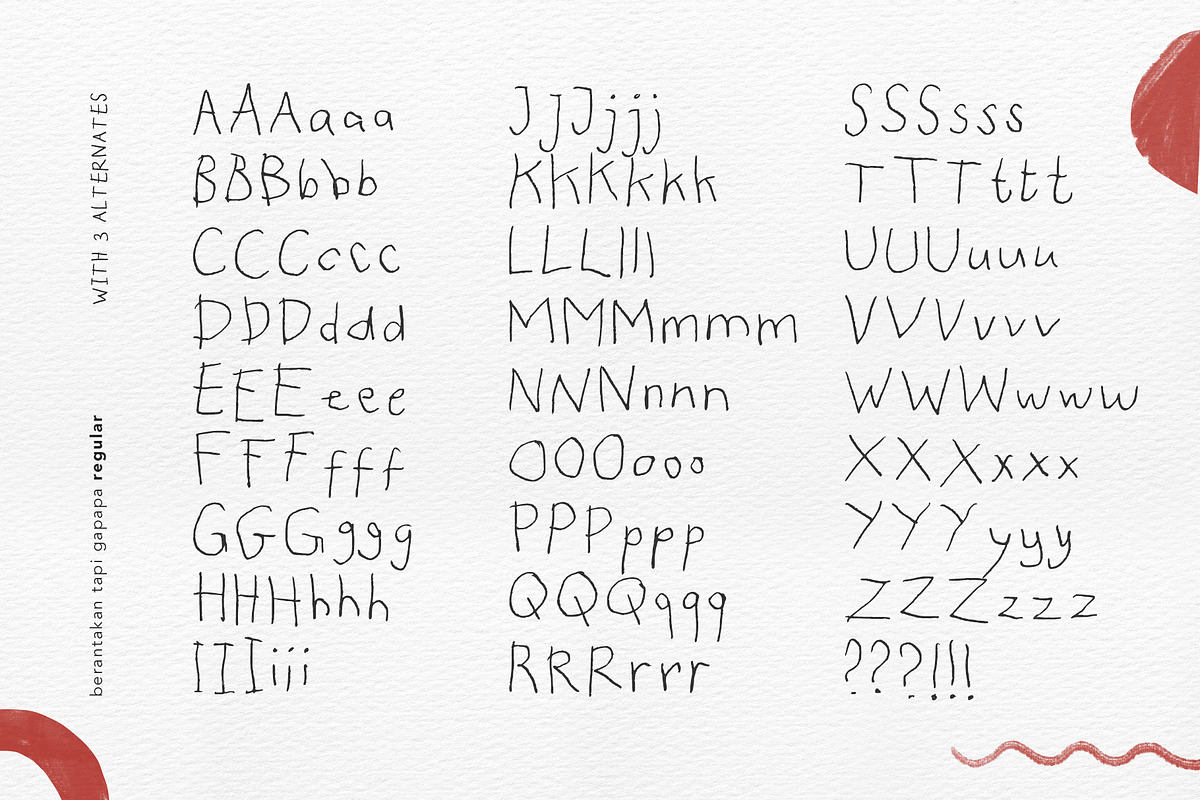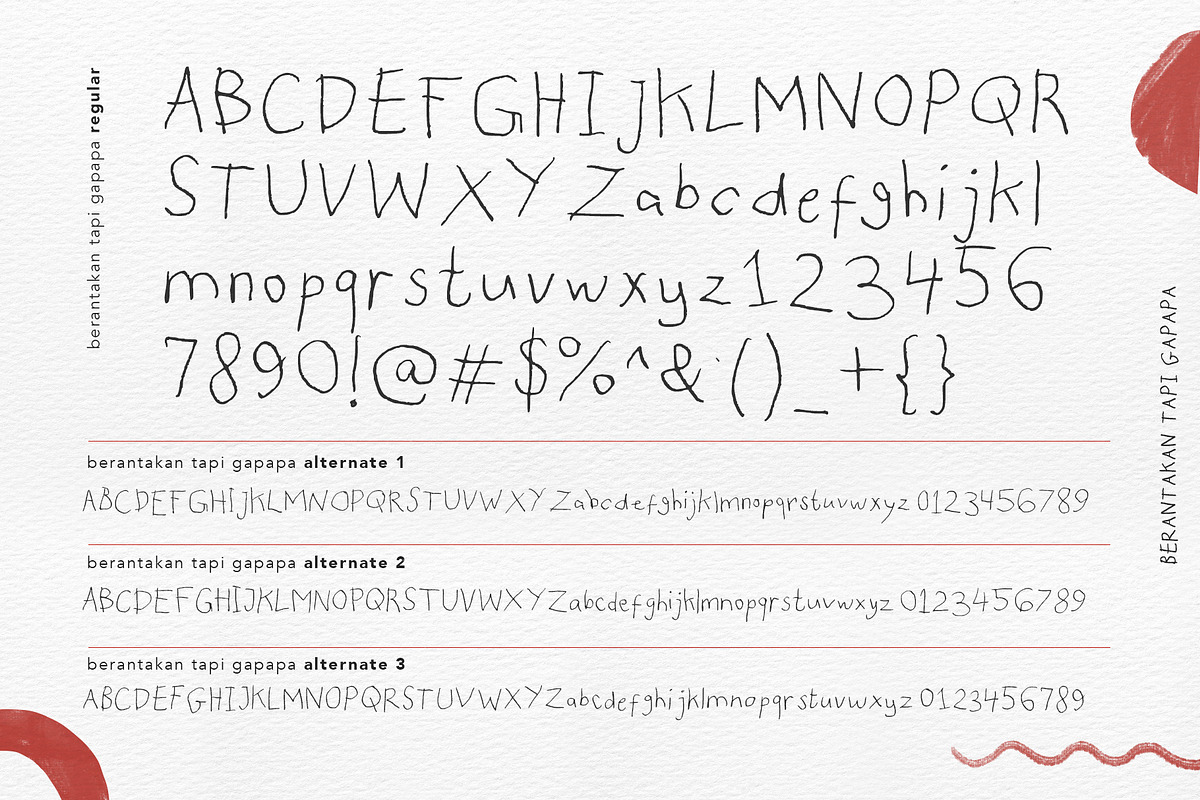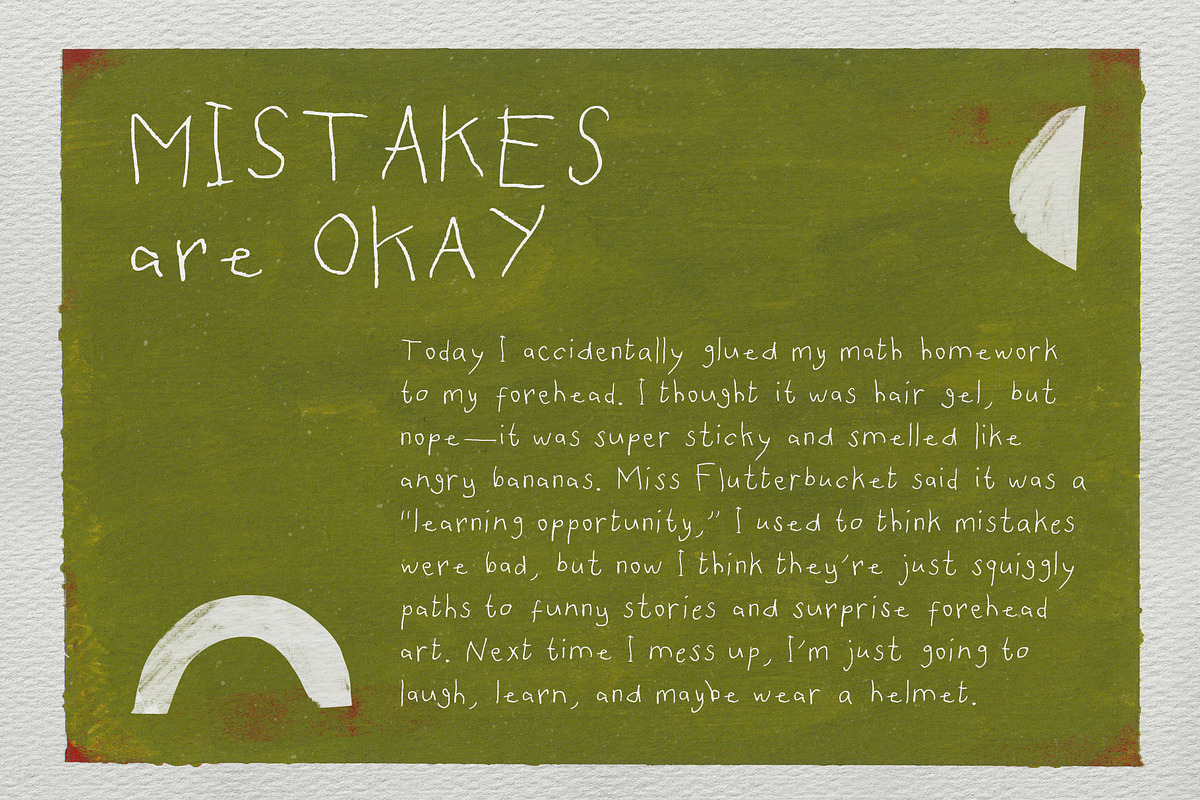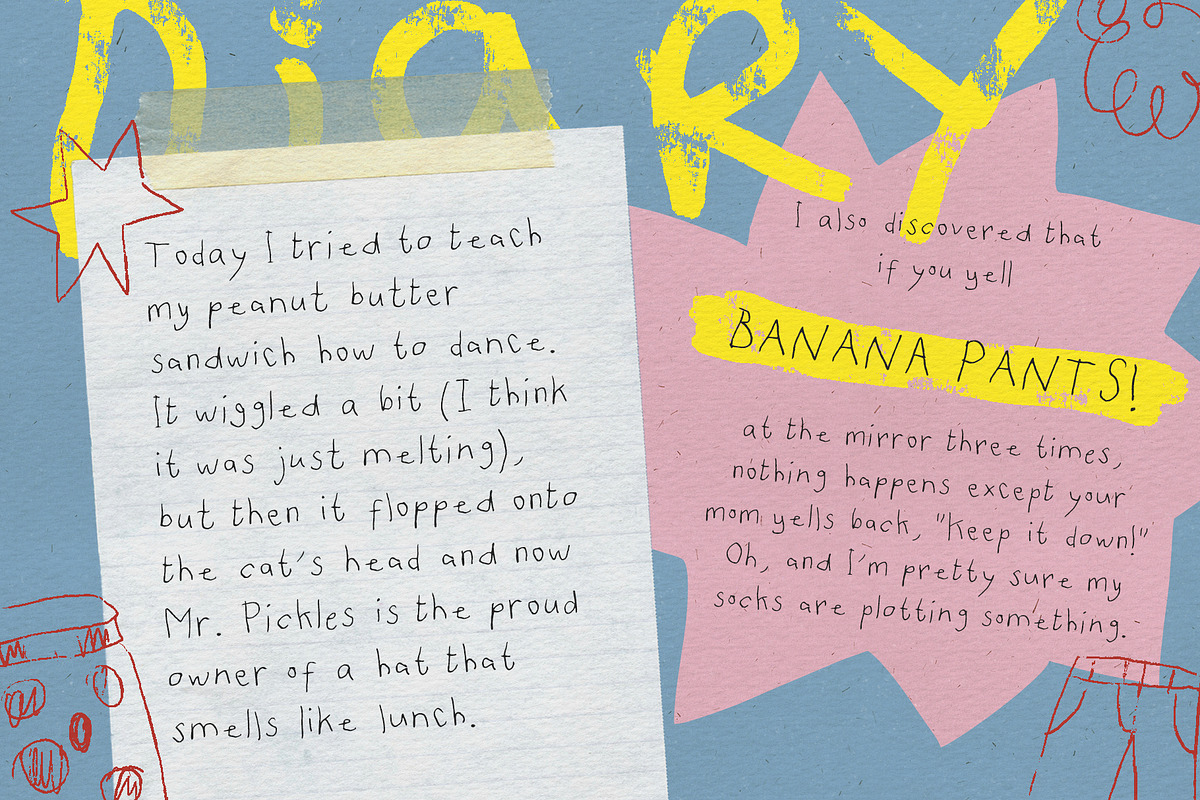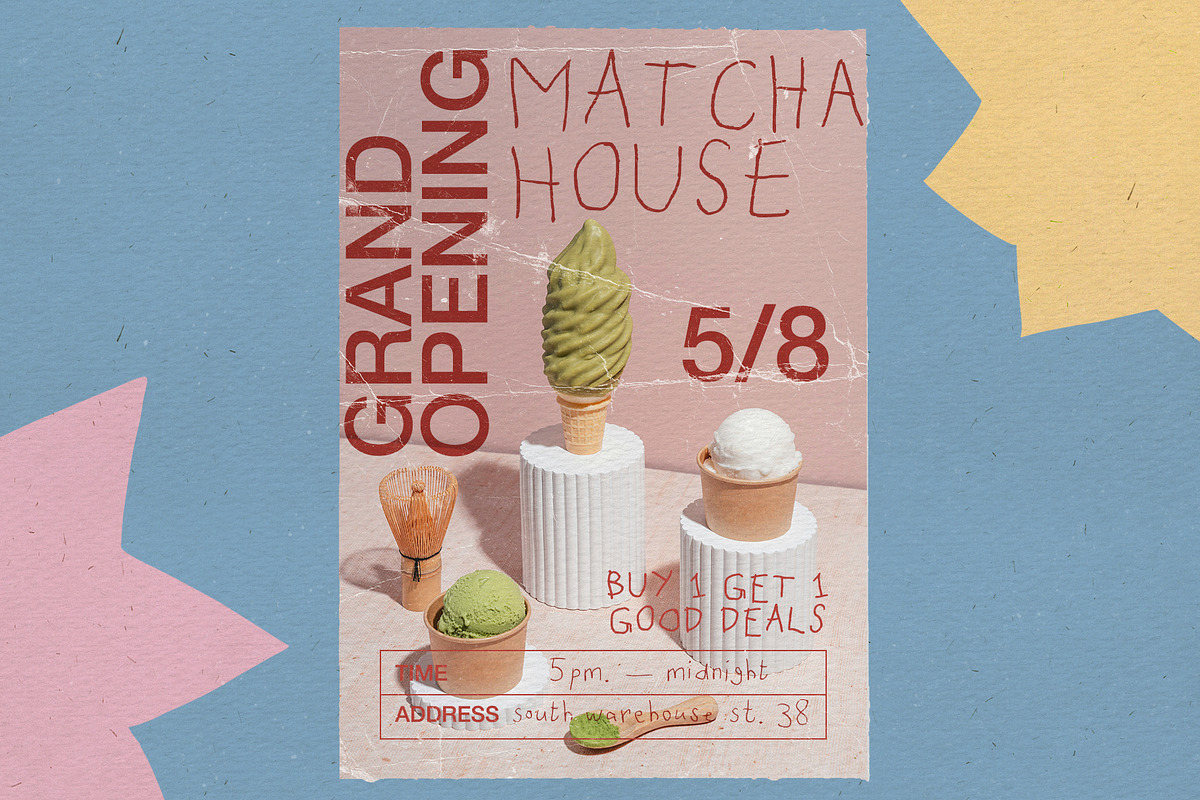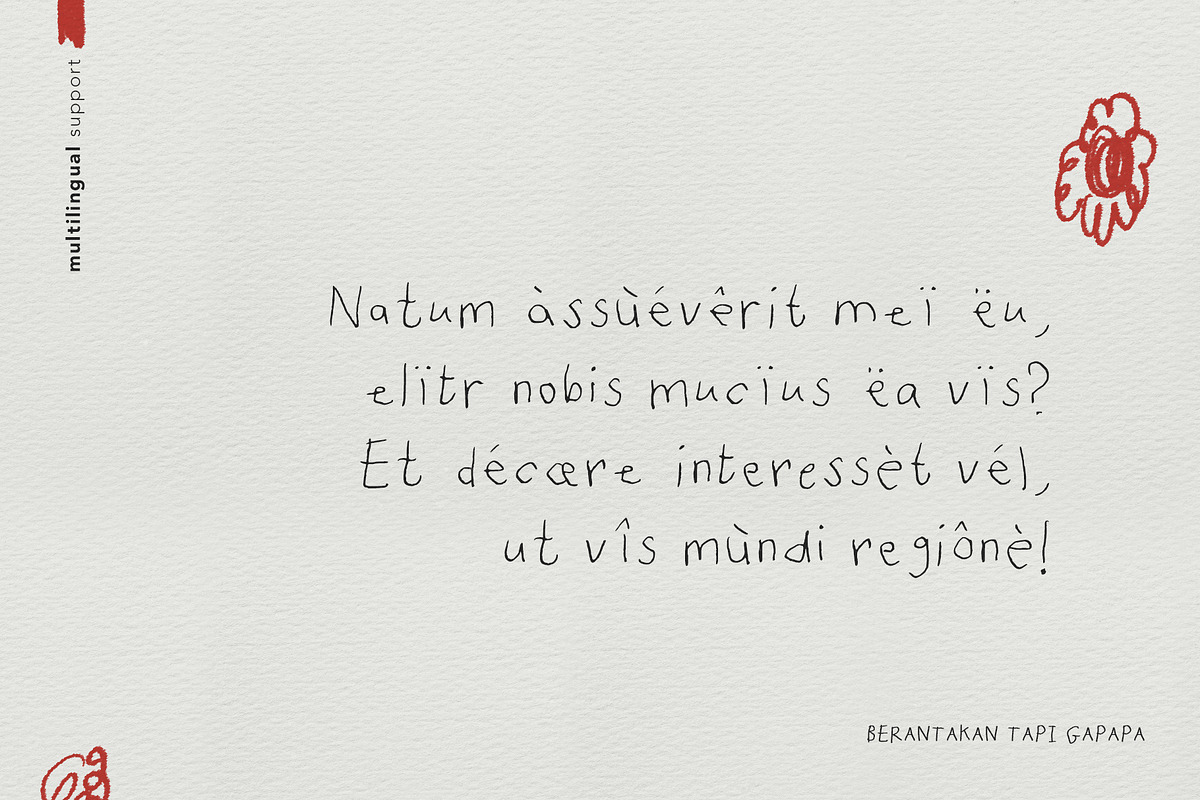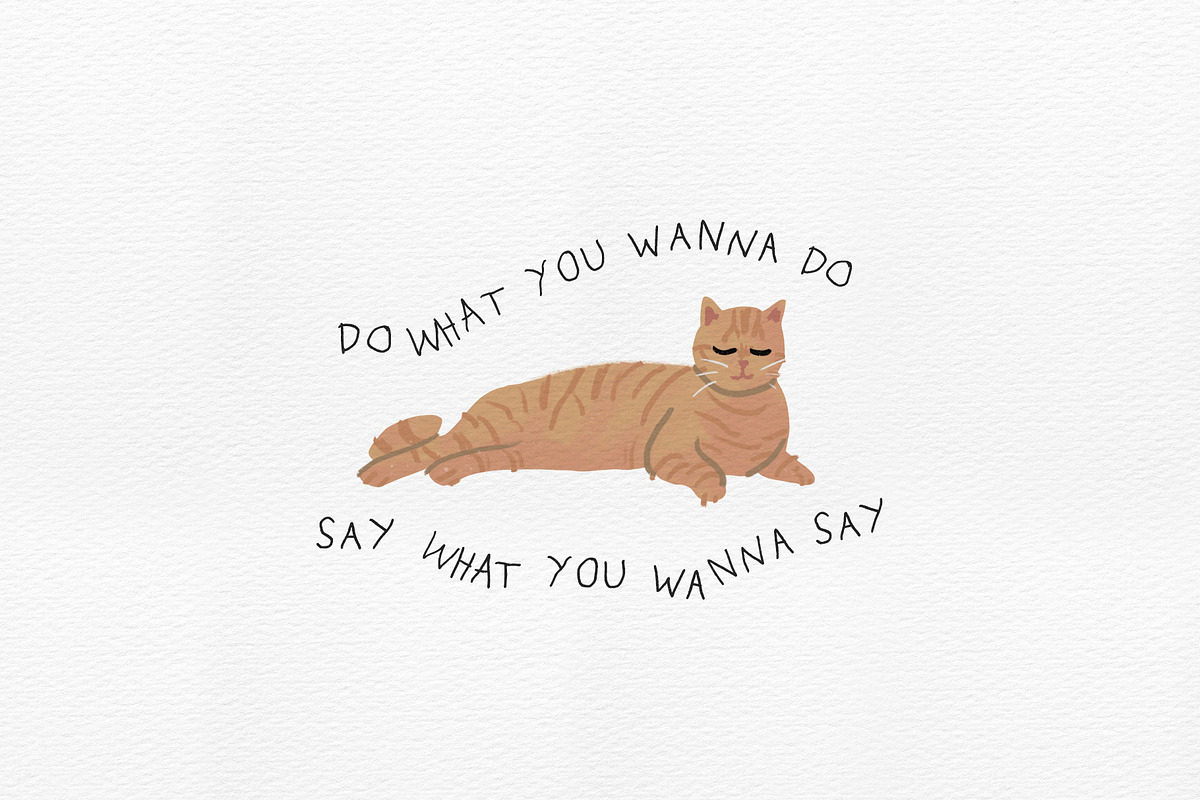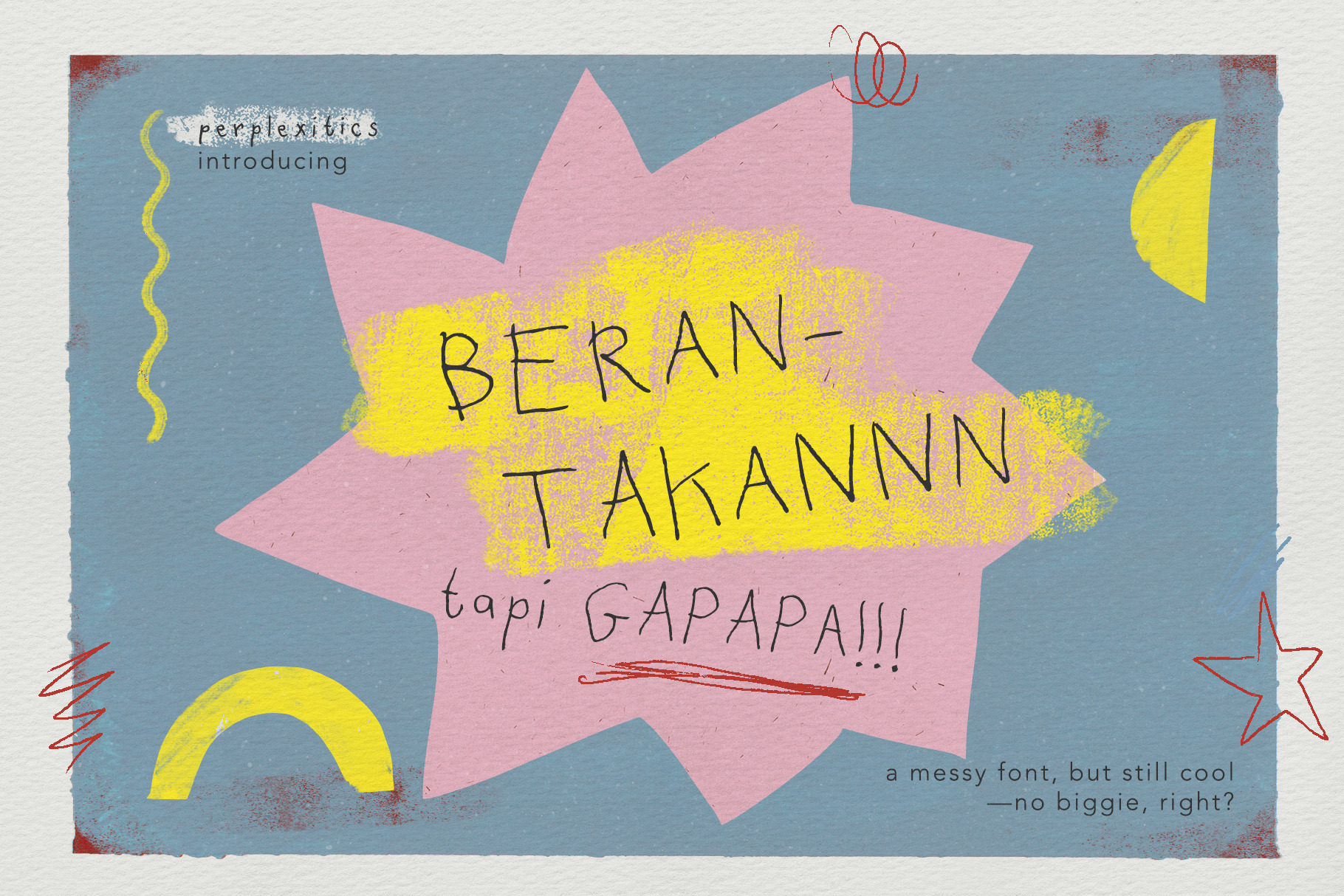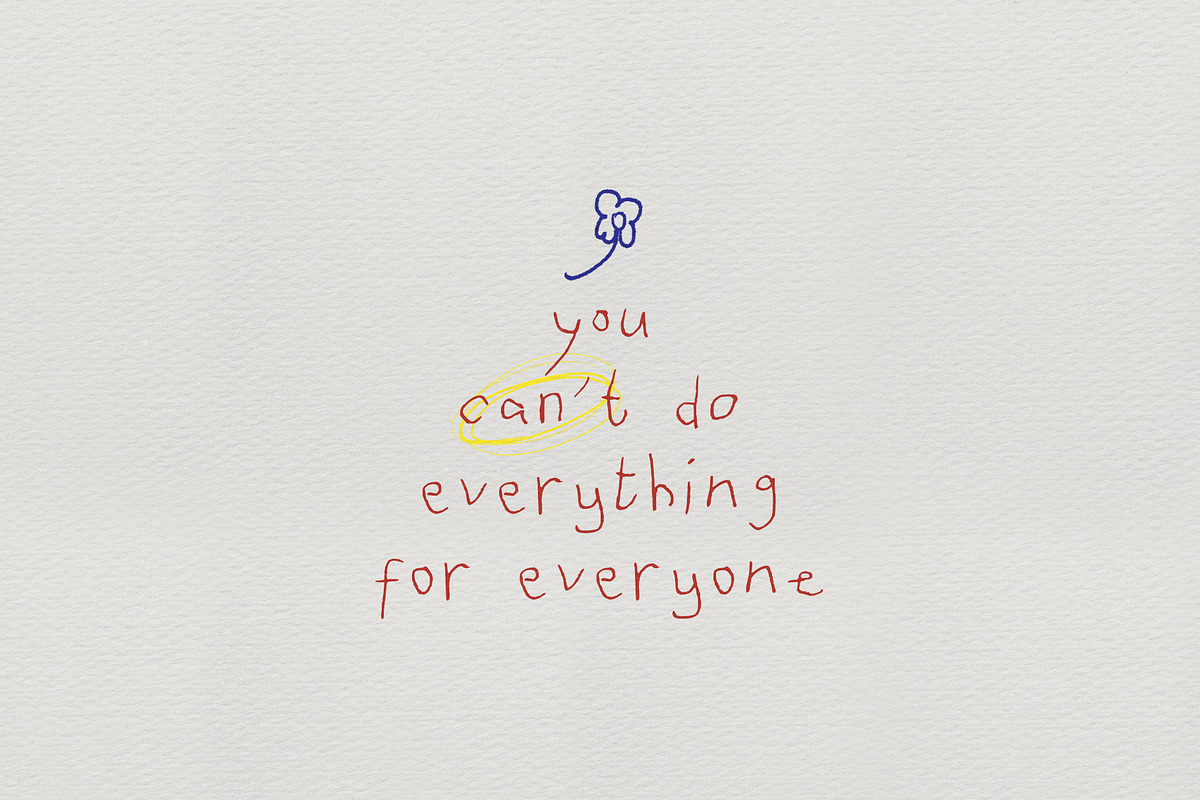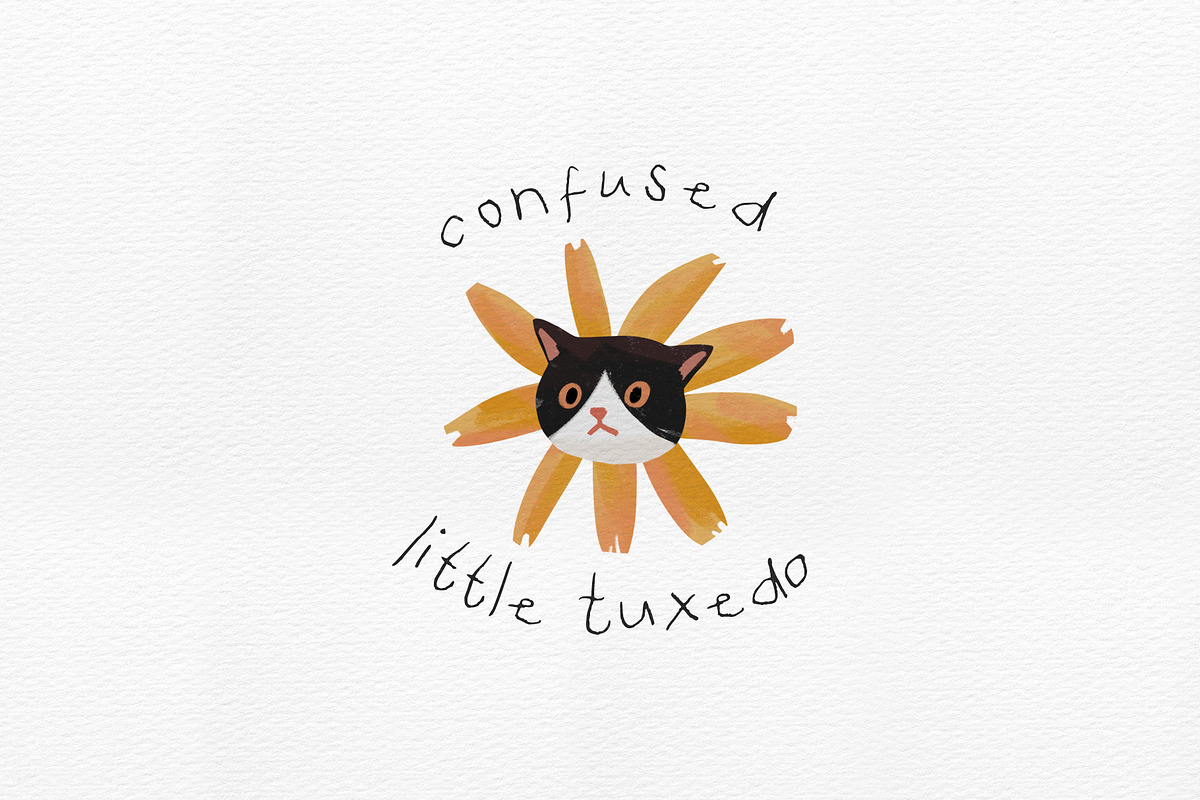
Berantakan Tapi Gapapa Doodle Font
Berantakan Tapi Gapapa Font is a messy handwritten font that has quirky, organic doodle feelings. Berantakan Tapi Gapapa Font is packed with everything you need, including uppercase and lowercase letters, numbers, punctuation, and alternates. Multilingual support.
Multilingual Support: À Á Â Ã Ä Å Æ Ç È É Ê Ë Ì Í Î Ï Ð Ñ Ò Ó Ô Õ Ö × Ø Ù Ú Û Ü Ý Þ ß à á â ã ä å æ ç è é ê ë ì í î ï ð ñ ò ó ô õ ö ø ù ú û ü ý þ ÿ Ā ā Ă ă Ą ą Ć ć Č č Ď ď Đ đ Ē ē Ė ė Ę ę Ě ě Ğ ğ Ģ ģ Ī ī Į į İ ı Ķ ķ Ĺ ĺ Ļ ļ Ľ ľ Ł ł Ń ń Ņ ņ Ň ň Ō ō Ő ő Œ œ Ŕ ŕ Ŗ ŗ Ř ř Ś ś Ş ş Š š Ţ ţ Ť ť Ū ū Ů ů Ű ű Ų ų Ÿ Ź ź Ż ż Ž ž ƒ Ș ș Ț ț